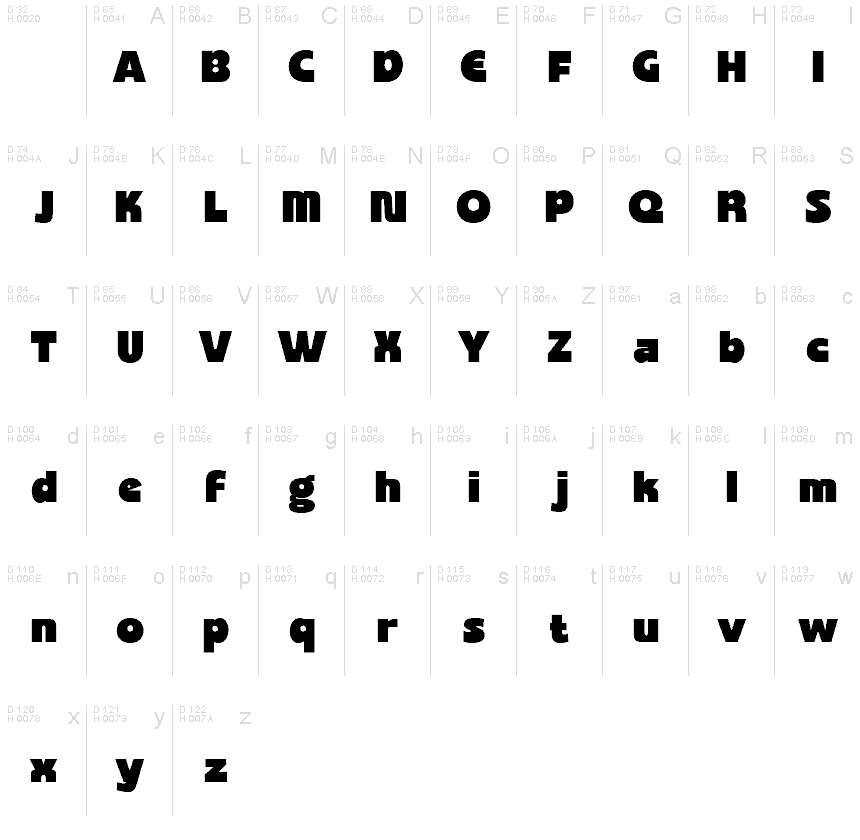
CS Genista Regular Demo
CS Genista font from Craft Supply Co. possesses a retro-inspired quality with hints of geometric influence. This strong and bold sans serif makes an impact with its clean modern appeal, easily suitable for both formal and commercial use. Designed mainly in uppercase, the typeface grabs attention even in limited appearances.
The font is perfect for headlines, advertising campaigns, magazine layouts, posters, branding projects, product packaging design and labeling, company slogans or logos. Its flexibility also extends to creating engaging websites and mobile apps user interfaces in underlined backgrounds and bright colors sections.